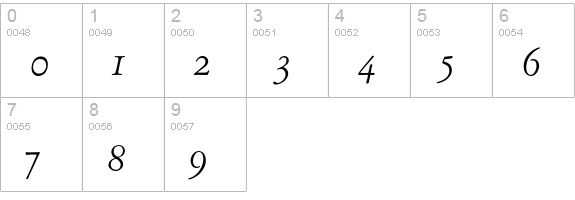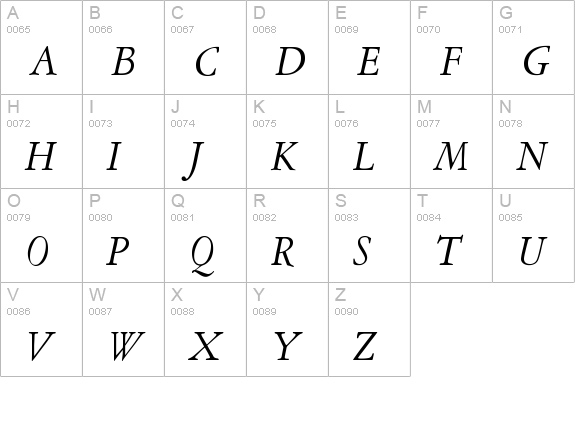
Garamont AMSTERDAM Expert Italic OsF Font Details
Garamont AMSTERDAM Expert Italic OsF is a distinctive, italic variant in the Garamont typeface family \xE2\x80\x94 well suited to design and typography projects.
The Garamont AMSTERDAM Expert Italic OsF font exudes elegance and sophistication with its delicate and flowing italic style. Perfect for adding a touch of grace to any design project, this font is expertly crafted to bring a sense of refinement and class to your work. And the best part? This stunning font is available for free download at FontsMarket.com. Now you can elevate your designs with the timeless beauty of the Garamont AMSTERDAM Expert Italic OsF font without breaking the bank. Don't miss out on this opportunity to enhance your creative projects with this exquisite typeface. Download it today and discover the endless possibilities it offers for your next design endeavor.